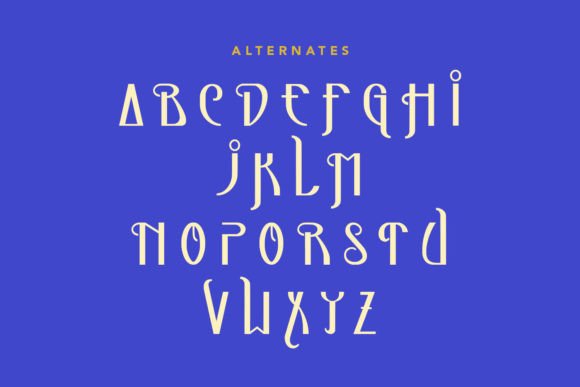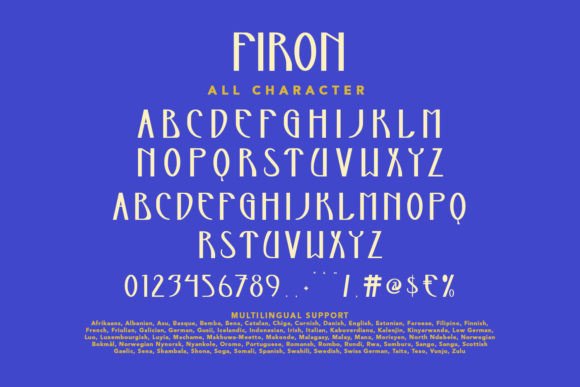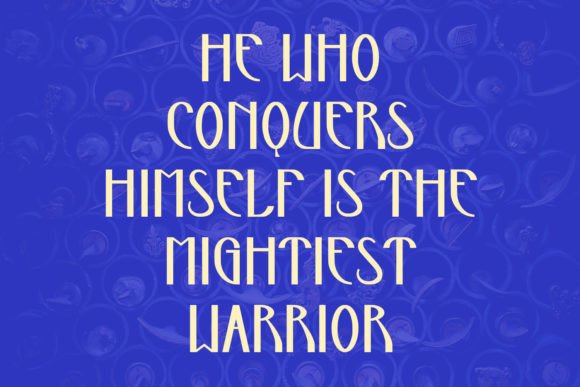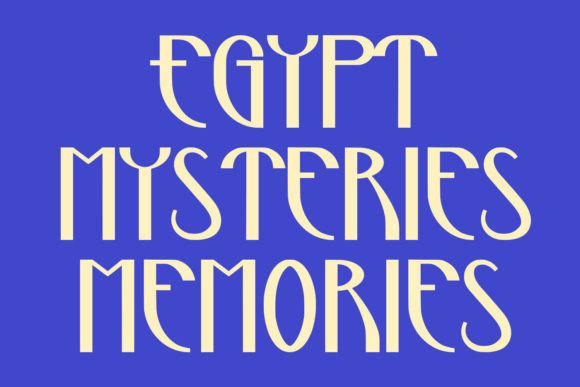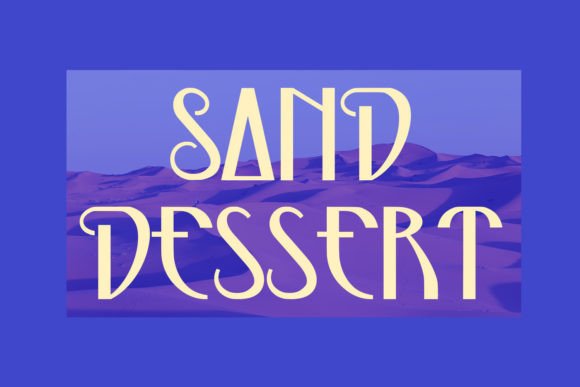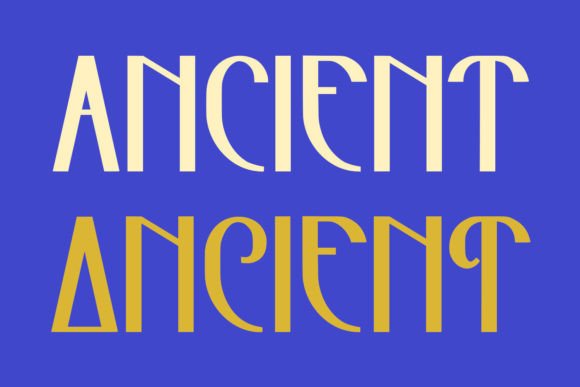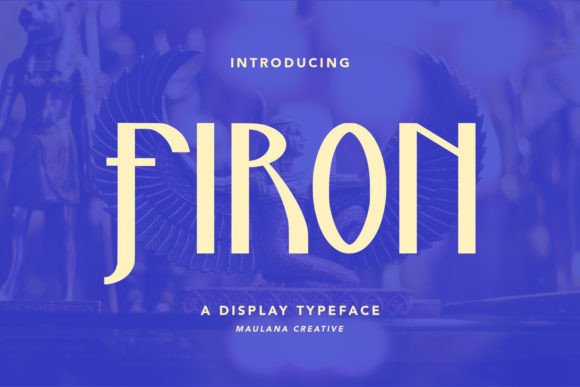
Firon Font: Elevate Your Designs with a Modern and Elegant Display Font
In the world of typography, a font can make or break a design. For designers and crafters looking to make a bold statement in their branding, headlines, or posters, Firon Font is an excellent choice. This modern and elegant display font boasts a distinctive geometric style that sets it apart from other typefaces. With its sharp angles and clean lines, Firon exudes a sophisticated yet edgy vibe that’s sure to capture attention.
The Unique Character of Firon Font
Firon’s unique character shapes and refined letterforms make it a standout in the world of typography. Each letter is carefully crafted with precision and attention to detail, resulting in a sleek and versatile typeface that’s perfect for a wide range of design applications. Whether you’re looking to create a bold logo, eye-catching headline, or striking poster, Firon Font is the perfect choice.
Key Features of Firon Font
- Distinctive Geometric Style: Firon Font features a unique geometric style that’s both modern and elegant.
- Sharp Angles and Clean Lines: The font’s sharp angles and clean lines give it a sophisticated yet edgy vibe.
- Refined Letterforms: Each letter is carefully crafted with precision and attention to detail, resulting in a sleek and versatile typeface.
- Versatile: Firon Font is perfect for a wide range of design applications, including branding, headlines, posters, and more.
Why Choose Firon Font?
There are many reasons why designers and crafters should choose Firon Font for their next project. Here are just a few:
- Makes a Bold Statement: Firon Font is designed to make a bold statement, perfect for designers and crafters looking to create eye-catching designs.
- Easy to Read: Despite its bold and edgy vibe, Firon Font is easy to read, making it perfect for use in headlines, titles, and other display text.
- Highly Versatile: Firon Font can be used in a wide range of design applications, from branding and advertising to posters and packaging.
- Unique and Memorable: Firon Font’s distinctive geometric style and refined letterforms make it a unique and memorable typeface that’s sure to leave a lasting impression.
How to Use Firon Font
Firon Font is easy to use and can be incorporated into a wide range of design projects. Here are a few tips for getting the most out of this amazing font:
- Use it as a Display Font: Firon Font is perfect for use as a display font, making it ideal for headlines, titles, and other display text.
- Pair it with Other Fonts: Firon Font can be paired with other fonts to create a unique and visually appealing design.
- Experiment with Different Sizes and Colors: Firon Font looks great in a variety of sizes and colors, so don’t be afraid to experiment and find the perfect combination for your design.